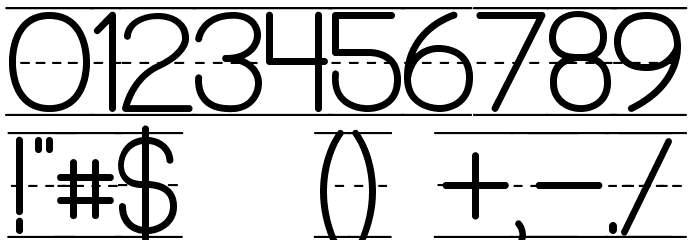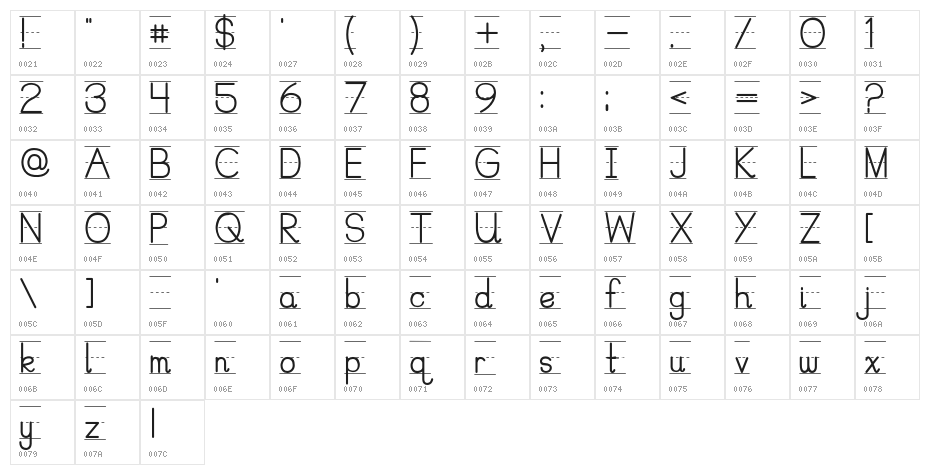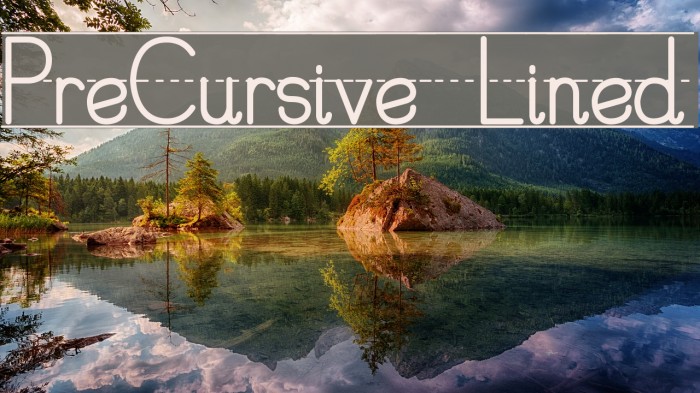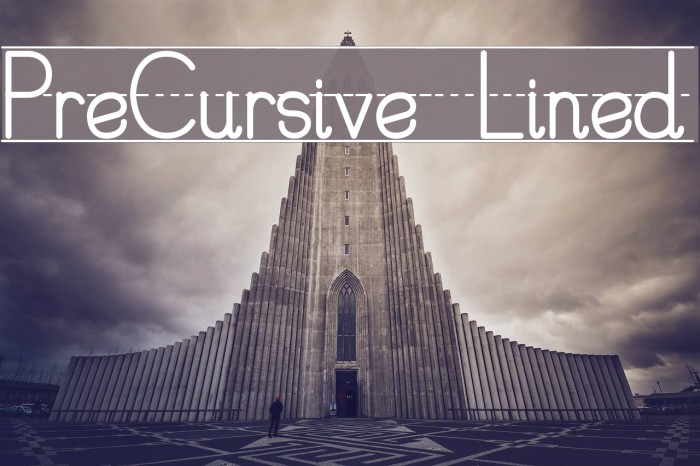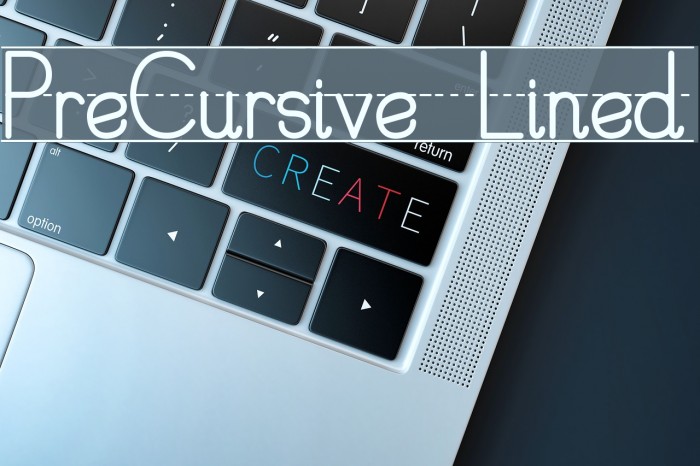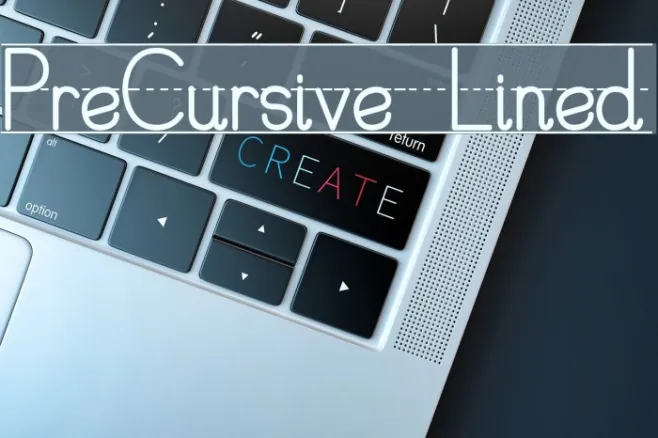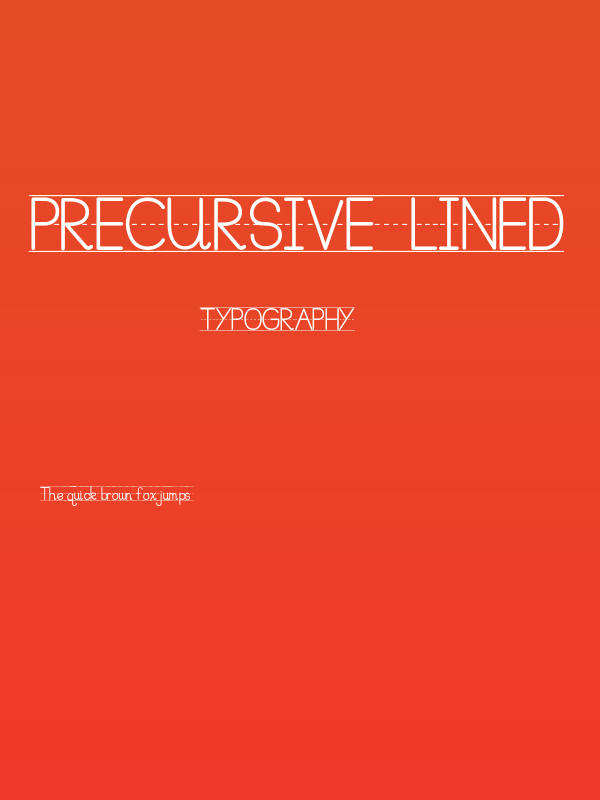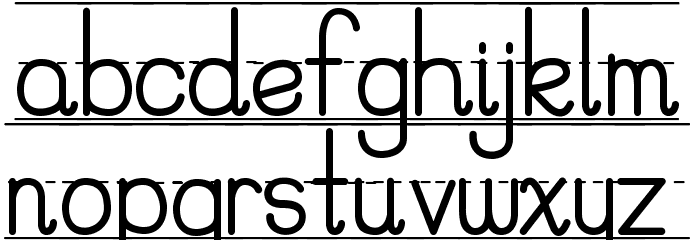
PreCursive_Lined Font
PreCursive_Lined Description
This font features a clean, structured design with a focus on clarity and readability. The uppercase letters are tall and narrow, with consistent line thickness throughout. The lowercase letters maintain a similar style, with rounded edges and a slightly playful touch. Numbers are clear and easy to read, matching the overall aesthetic of the alphabet. Special characters are designed to complement the letters and numbers, ensuring a cohesive look. The font is ideal for educational purposes, particularly in teaching handwriting, due to its lined structure that guides letter formation.
Overall StyleEducational, Structured
Use CaseEducational materials, Handwriting practice
Proposed ProjectsPerfect for educational materials, children's books, handwriting practice sheets, and instructional guides.